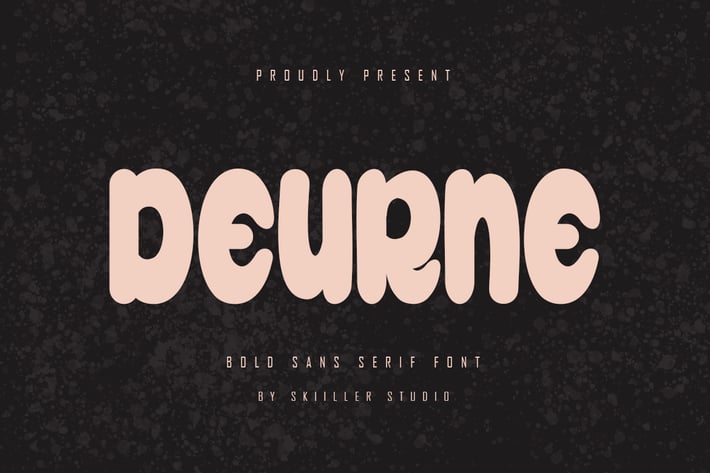
Deurne - Bold Sans Serif Font
Deurne is a modern and cool sans serif font. No matter the topic, this font will be an incredibly asset to your fonts’ library, as it has the potential to elevate any creation. Deurne is PUA encoded which means you can access all of the glyphs and swashes with ease!